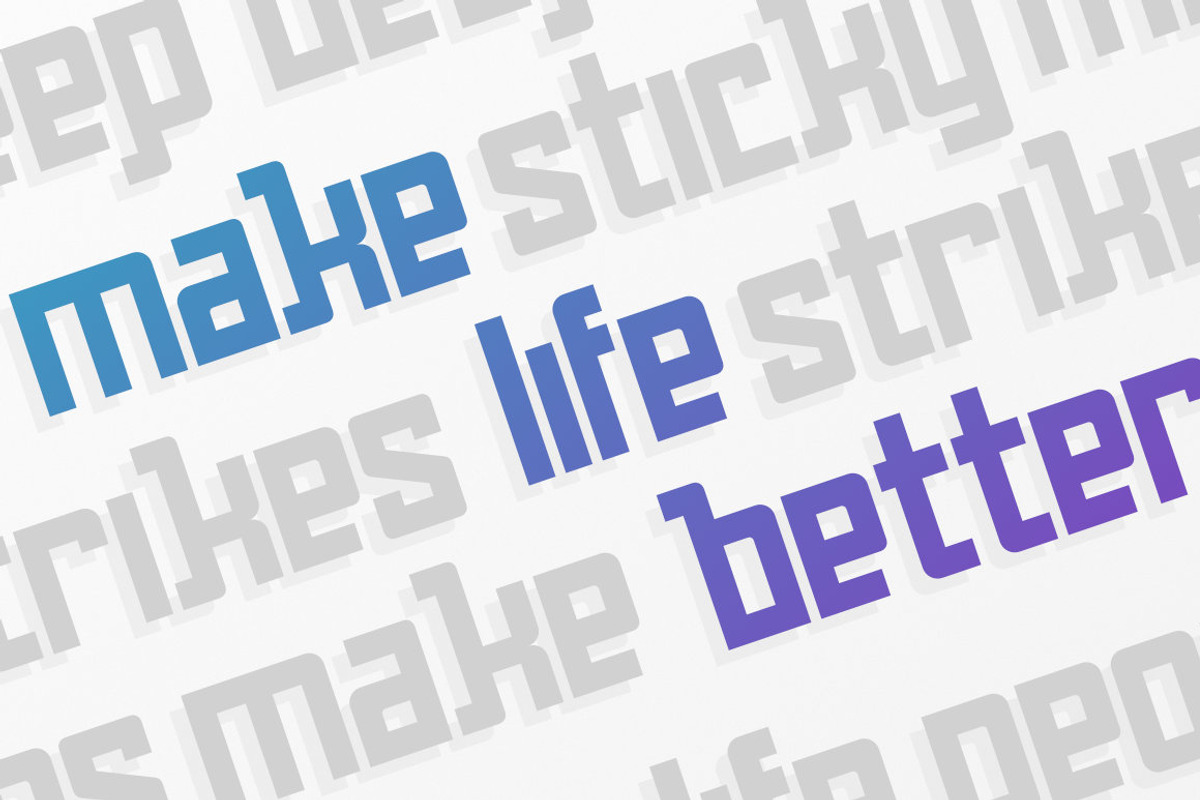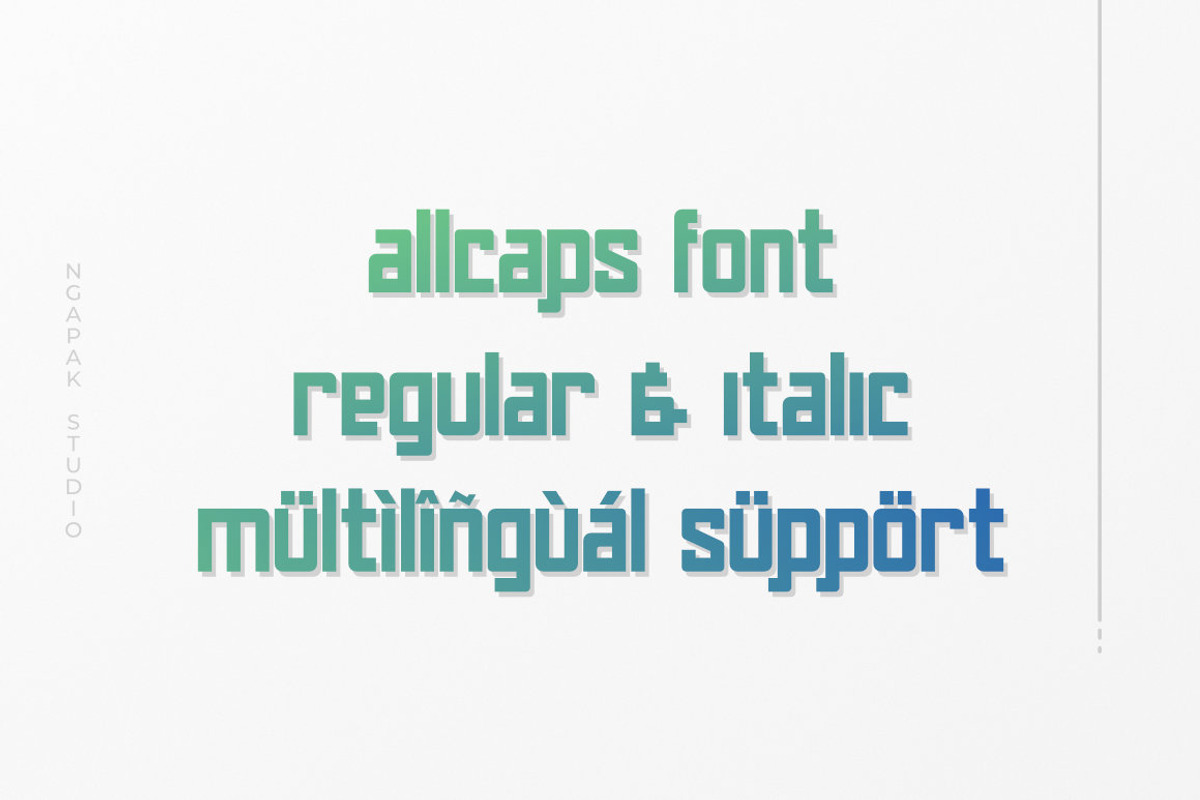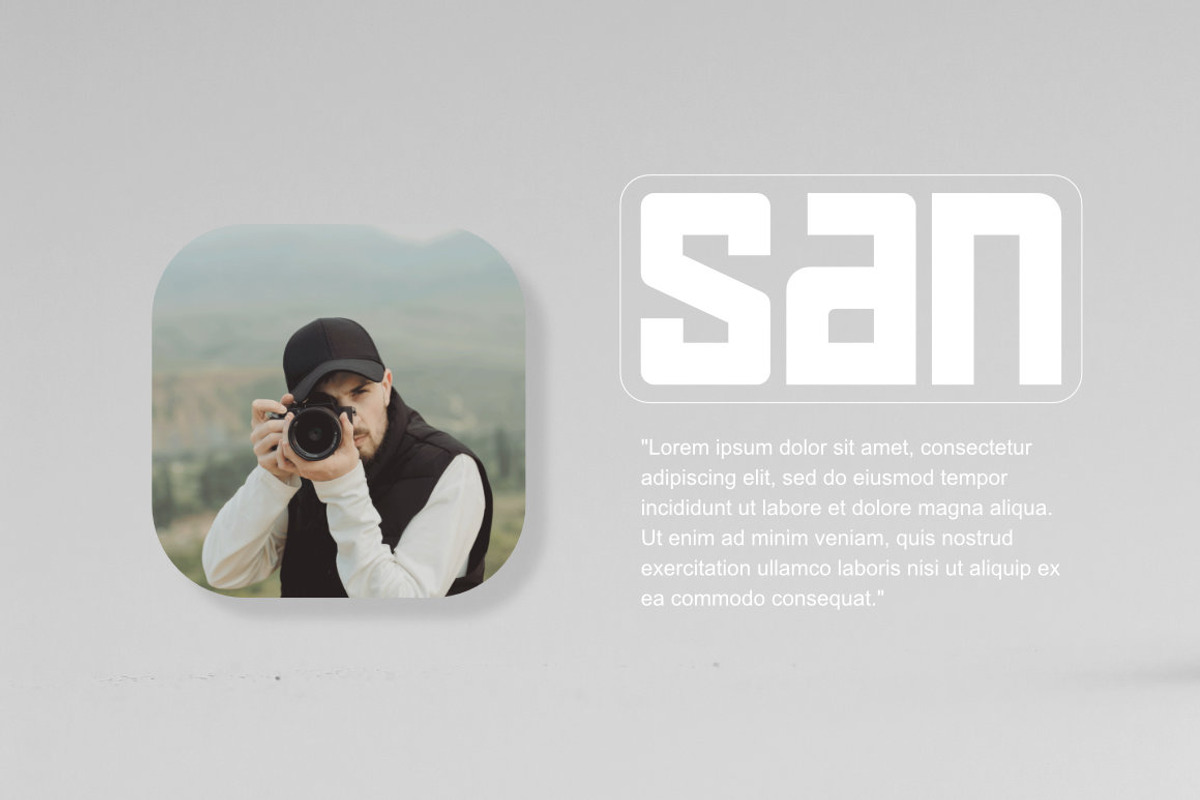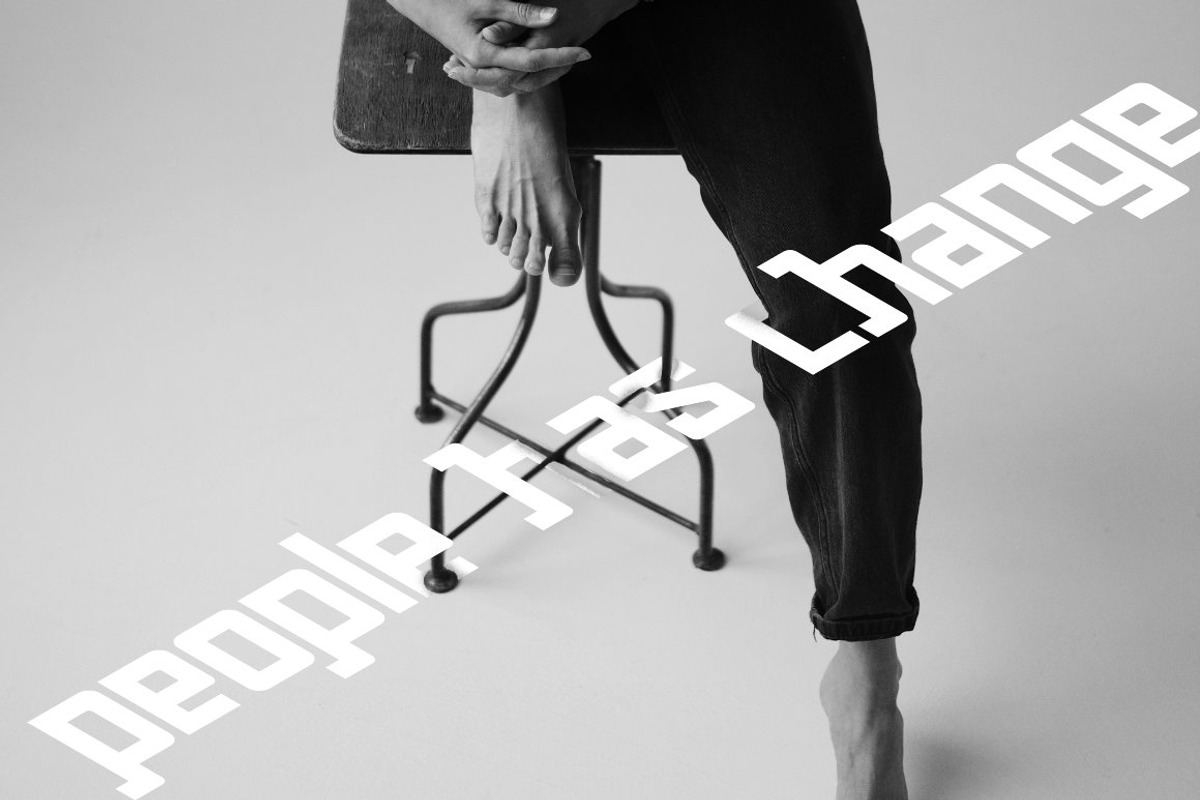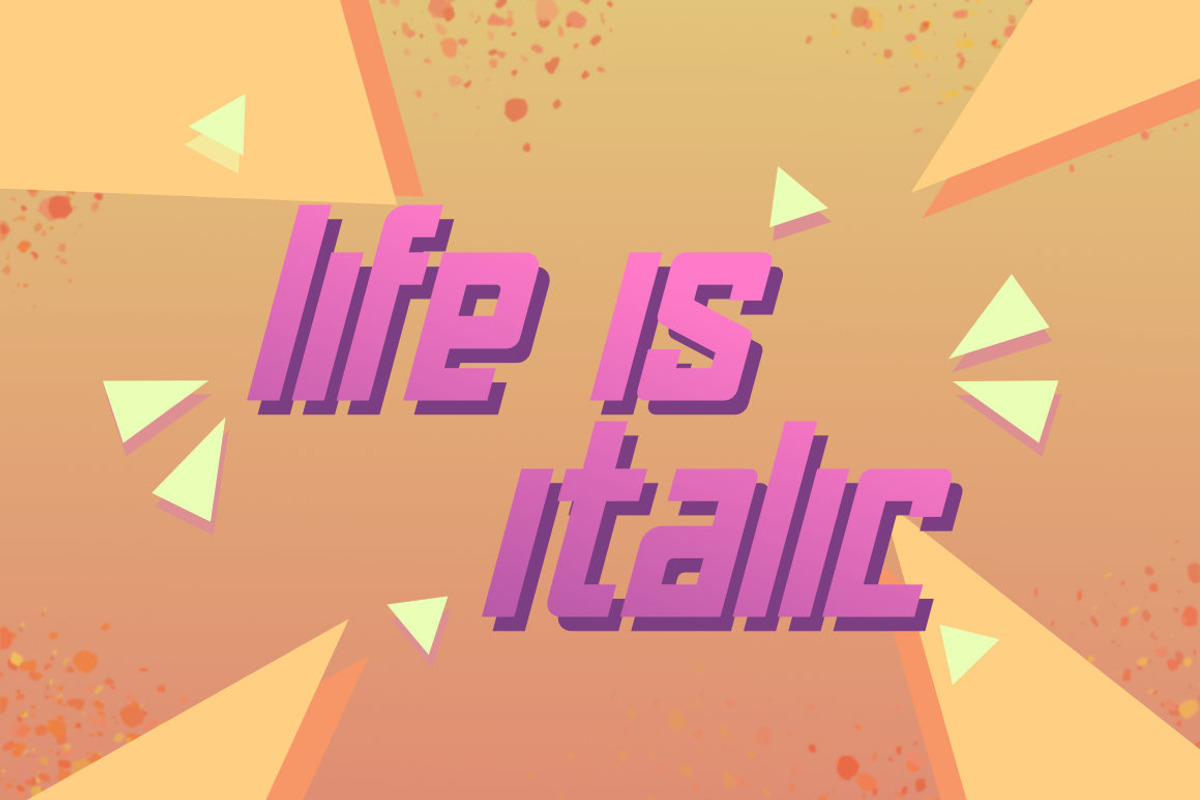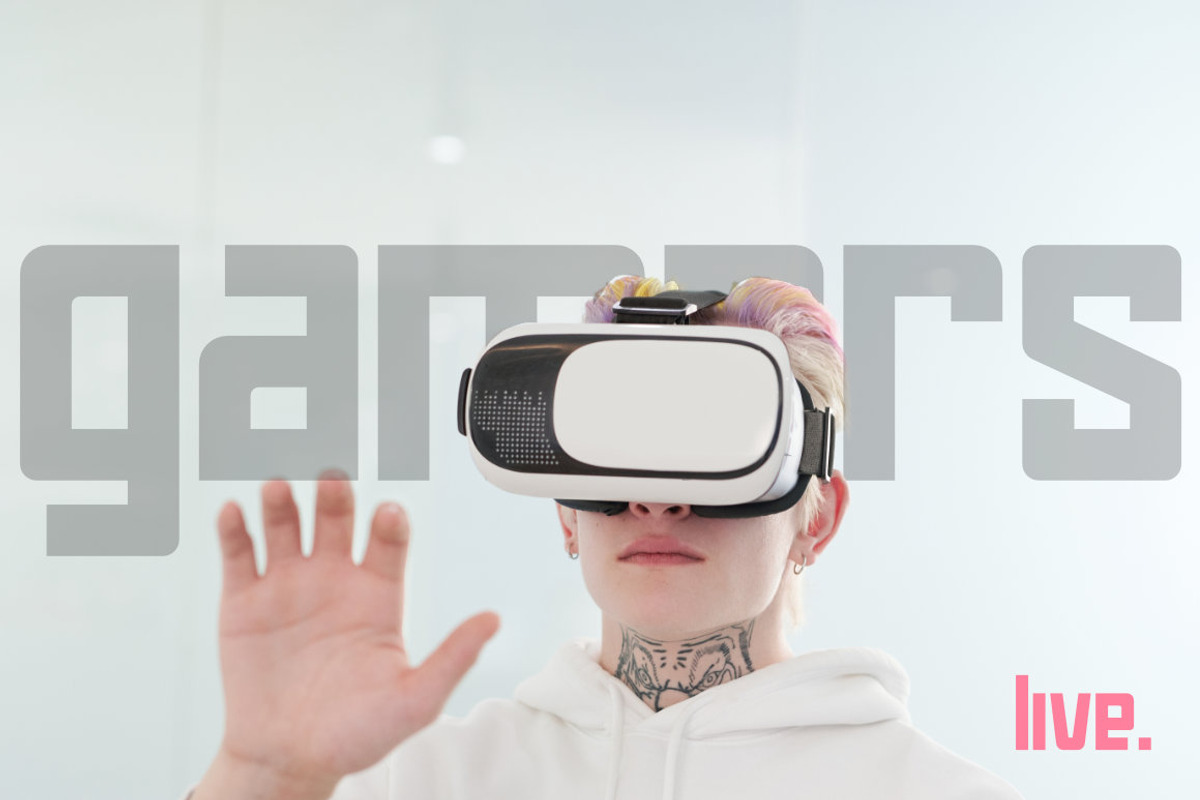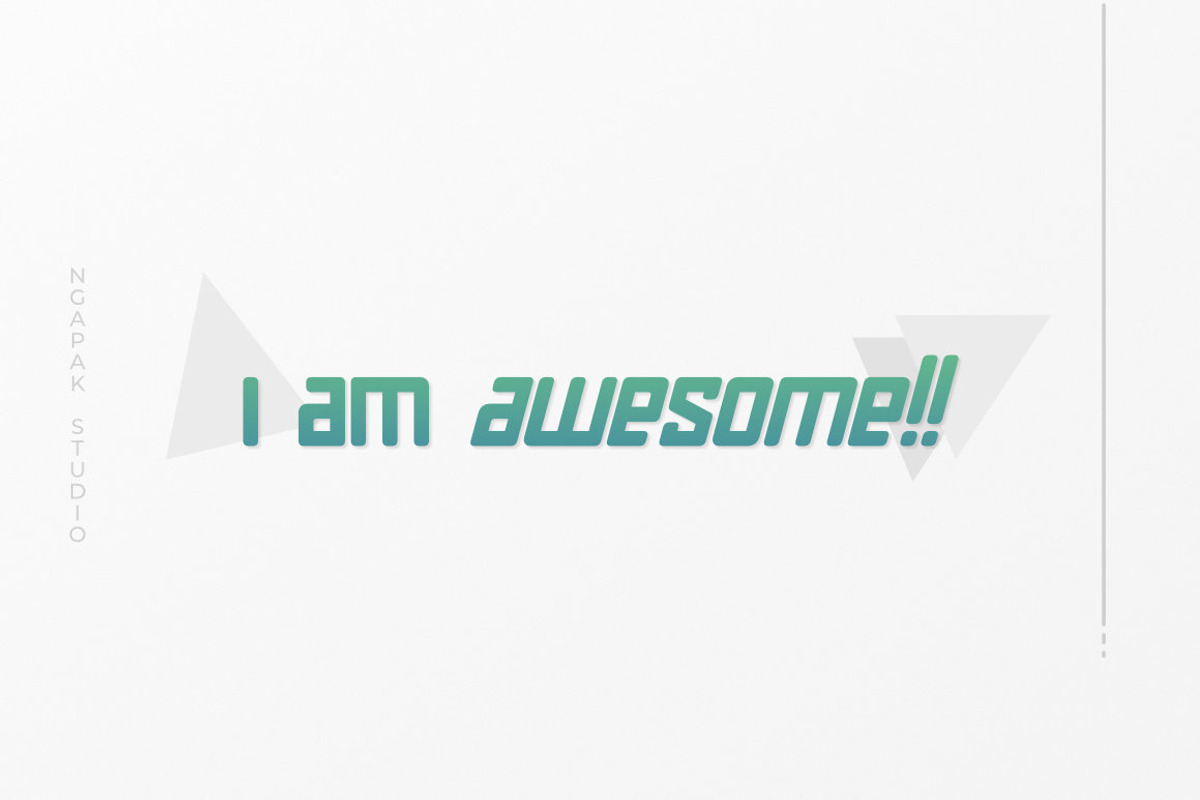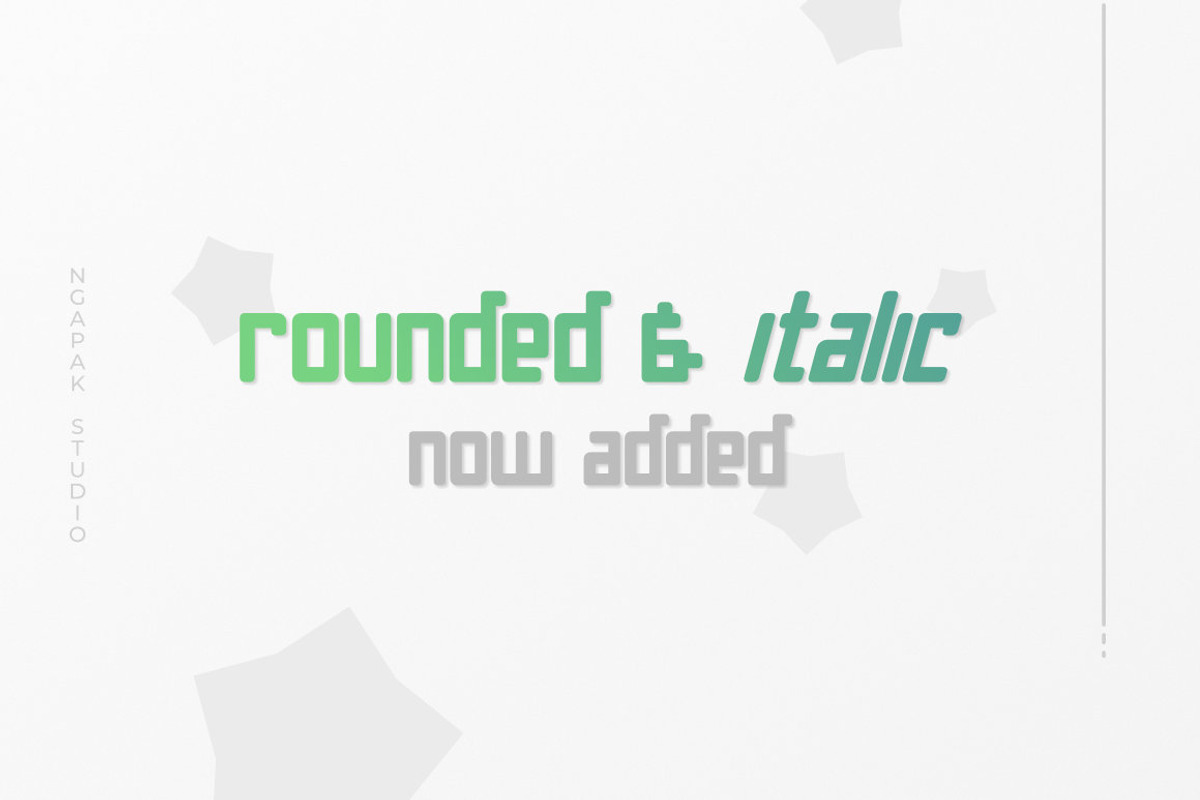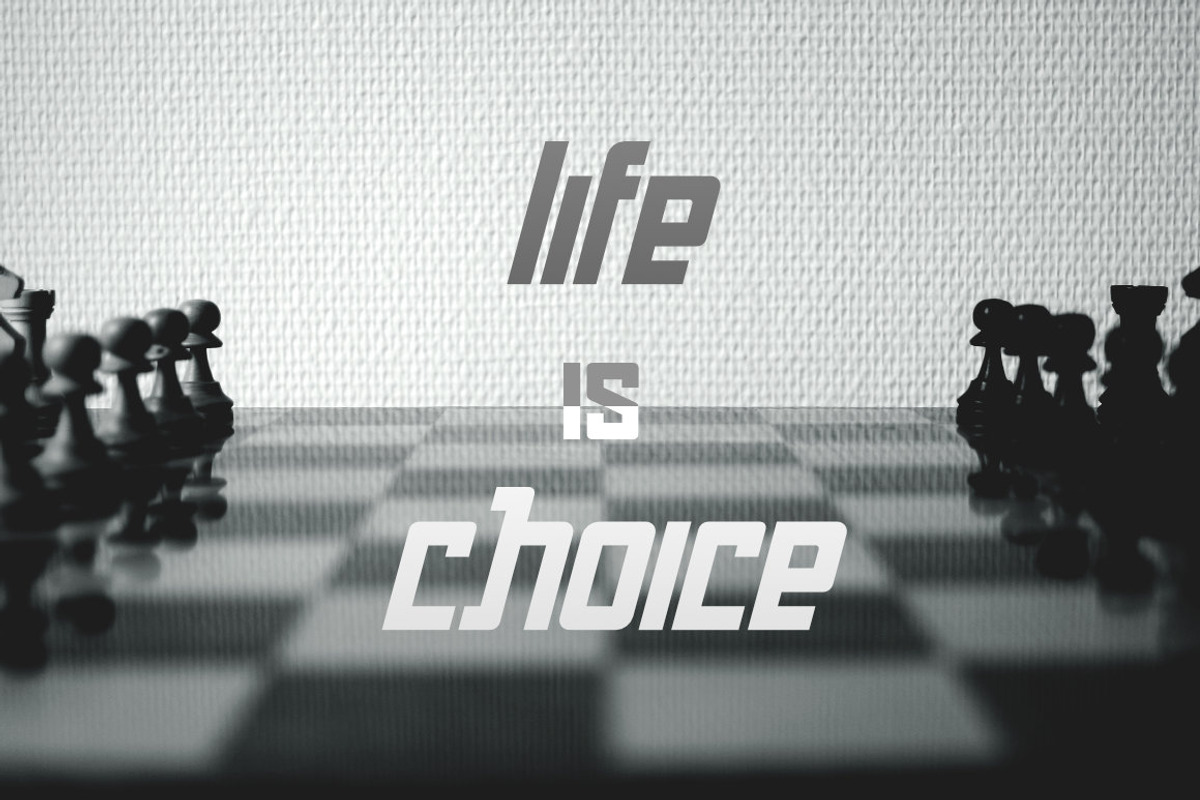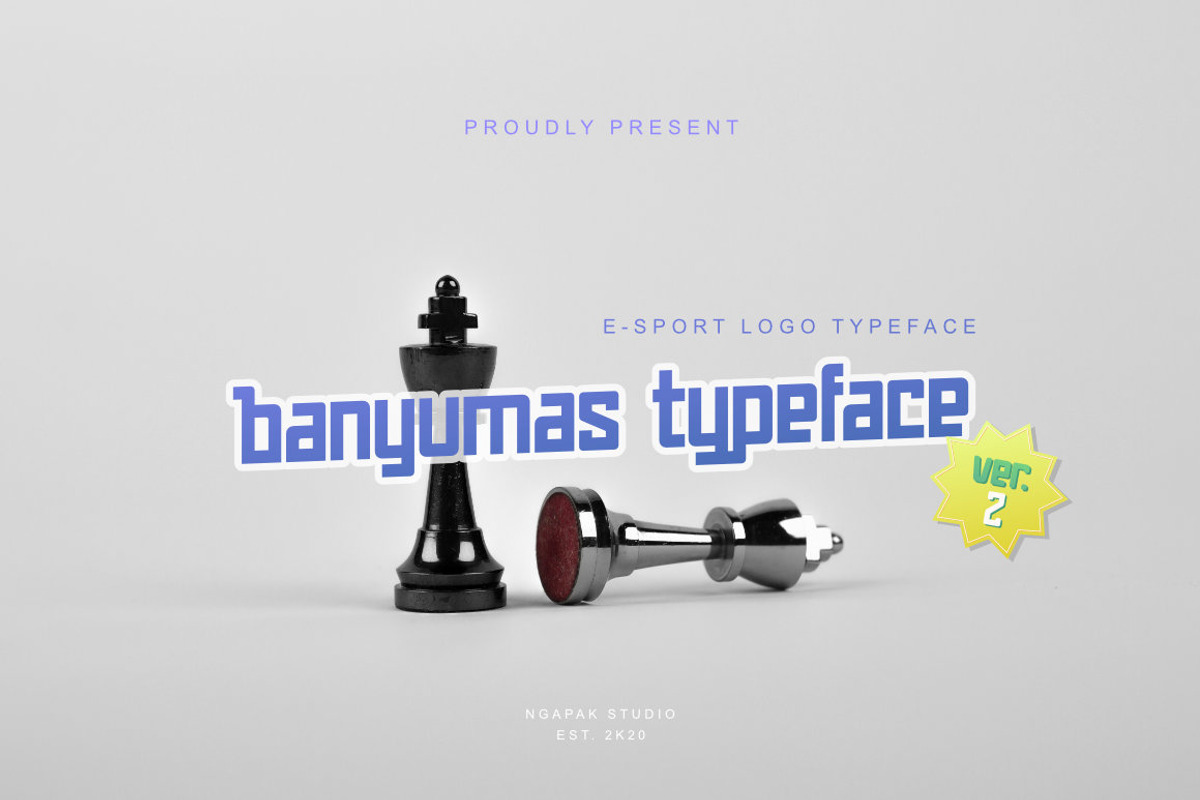
Banyumas Typeface | E-sport Typeface
Banyumas Typeface is a All caps Display font with a stiff and modern display style that perfect for your e-sport logo project.
Banyumas Typeface is perfect for branding projects, logo, social media posts, advertisements, product packaging, product designs, label, photography, watermark, invitation, stationery and any projects that need modern display taste.
- Allcaps
- Fonts include multilingual support for; Afrikaans, Albanian, Asu, Basque, Bemba, Bena, Breton, Catalan, Chiga, Cornish, Danish, Dutch, English, Faroese, Filipino, French, Friulian, Galician, Gusii, Indonesian, Irish, Italian, Kabuverdianu, Kalenjin, Kinyarwanda, Luo, Luxembourgish, Luyia, Machame, Makhuwa-Meetto, Makonde, Malagasy, Manx, Morisyen, North Ndebele, Norwegian Bokmål, Norwegian Nynorsk, Nyankole, Oromo, Portuguese, Quechua, Romansh, Rombo, Rundi, Rwa, Samburu, Sango, Sangu, Scottish Gaelic, Sena, Shambala, Shona, Soga, Somali, Spanish, Swahili, Swedish, Swiss German, Taita, Teso, Uzbek (Latin), Vunjo, Welsh, Western Frisian, Zulu.